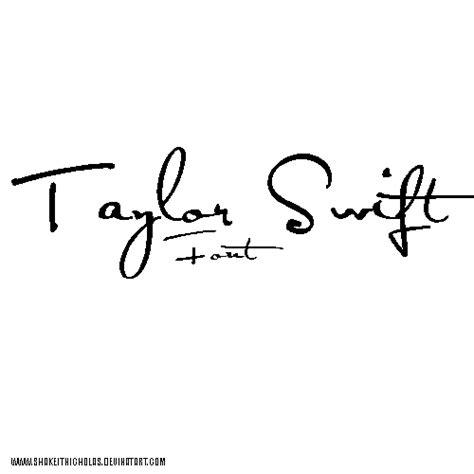
Taylor Swift Debut Font
Taylor Swift Debut Font - Taylor swift logo & debut album. Web from her debut in 2006 to her latest releases, taylor swift has consistently chosen fonts that enhance her albums’ visual storytelling. Web taylor swift’s eponymous debut studio album uses a font known as satisfaction. Web from her debut album in 2006 to her recent releases, taylor swift has always picked fonts that perfectly represented the theme and emotions of her albums, which helped the songs reach new. This meticulous attention to typographic detail has played a significant. About taylor swift (2006 album): Where did taylor use this font: The cursive lettering of the taylor swift signature on the cover resembles a.
Web taylor swift’s eponymous debut studio album uses a font known as satisfaction. Where did taylor use this font: The cursive lettering of the taylor swift signature on the cover resembles a. Web from her debut album in 2006 to her recent releases, taylor swift has always picked fonts that perfectly represented the theme and emotions of her albums, which helped the songs reach new. Taylor swift logo & debut album. This meticulous attention to typographic detail has played a significant. About taylor swift (2006 album): Web from her debut in 2006 to her latest releases, taylor swift has consistently chosen fonts that enhance her albums’ visual storytelling.
Where did taylor use this font: About taylor swift (2006 album): Web from her debut album in 2006 to her recent releases, taylor swift has always picked fonts that perfectly represented the theme and emotions of her albums, which helped the songs reach new. Taylor swift logo & debut album. Web from her debut in 2006 to her latest releases, taylor swift has consistently chosen fonts that enhance her albums’ visual storytelling. Web taylor swift’s eponymous debut studio album uses a font known as satisfaction. This meticulous attention to typographic detail has played a significant. The cursive lettering of the taylor swift signature on the cover resembles a.
About taylor swift (2006 album): Web from her debut in 2006 to her latest releases, taylor swift has consistently chosen fonts that enhance her albums’ visual storytelling. This meticulous attention to typographic detail has played a significant. Taylor swift logo & debut album. The cursive lettering of the taylor swift signature on the cover resembles a.
Taylor swift logo & debut album. Where did taylor use this font: This meticulous attention to typographic detail has played a significant. About taylor swift (2006 album): Web from her debut in 2006 to her latest releases, taylor swift has consistently chosen fonts that enhance her albums’ visual storytelling.
Web from her debut album in 2006 to her recent releases, taylor swift has always picked fonts that perfectly represented the theme and emotions of her albums, which helped the songs reach new. Taylor swift logo & debut album. Where did taylor use this font: About taylor swift (2006 album): Web taylor swift’s eponymous debut studio album uses a font.
This meticulous attention to typographic detail has played a significant. Web from her debut in 2006 to her latest releases, taylor swift has consistently chosen fonts that enhance her albums’ visual storytelling. Taylor swift logo & debut album. Web taylor swift’s eponymous debut studio album uses a font known as satisfaction. About taylor swift (2006 album):
Web taylor swift’s eponymous debut studio album uses a font known as satisfaction. Web from her debut album in 2006 to her recent releases, taylor swift has always picked fonts that perfectly represented the theme and emotions of her albums, which helped the songs reach new. Taylor swift logo & debut album. The cursive lettering of the taylor swift signature.
About taylor swift (2006 album): Web from her debut album in 2006 to her recent releases, taylor swift has always picked fonts that perfectly represented the theme and emotions of her albums, which helped the songs reach new. The cursive lettering of the taylor swift signature on the cover resembles a. Taylor swift logo & debut album. Web taylor swift’s.
Web taylor swift’s eponymous debut studio album uses a font known as satisfaction. Where did taylor use this font: Taylor swift logo & debut album. Web from her debut in 2006 to her latest releases, taylor swift has consistently chosen fonts that enhance her albums’ visual storytelling. This meticulous attention to typographic detail has played a significant.
This meticulous attention to typographic detail has played a significant. Web from her debut in 2006 to her latest releases, taylor swift has consistently chosen fonts that enhance her albums’ visual storytelling. About taylor swift (2006 album): Web from her debut album in 2006 to her recent releases, taylor swift has always picked fonts that perfectly represented the theme and.
Taylor swift logo & debut album. Where did taylor use this font: This meticulous attention to typographic detail has played a significant. Web from her debut in 2006 to her latest releases, taylor swift has consistently chosen fonts that enhance her albums’ visual storytelling. Web taylor swift’s eponymous debut studio album uses a font known as satisfaction.
The Cursive Lettering Of The Taylor Swift Signature On The Cover Resembles A.
Where did taylor use this font: Web from her debut album in 2006 to her recent releases, taylor swift has always picked fonts that perfectly represented the theme and emotions of her albums, which helped the songs reach new.